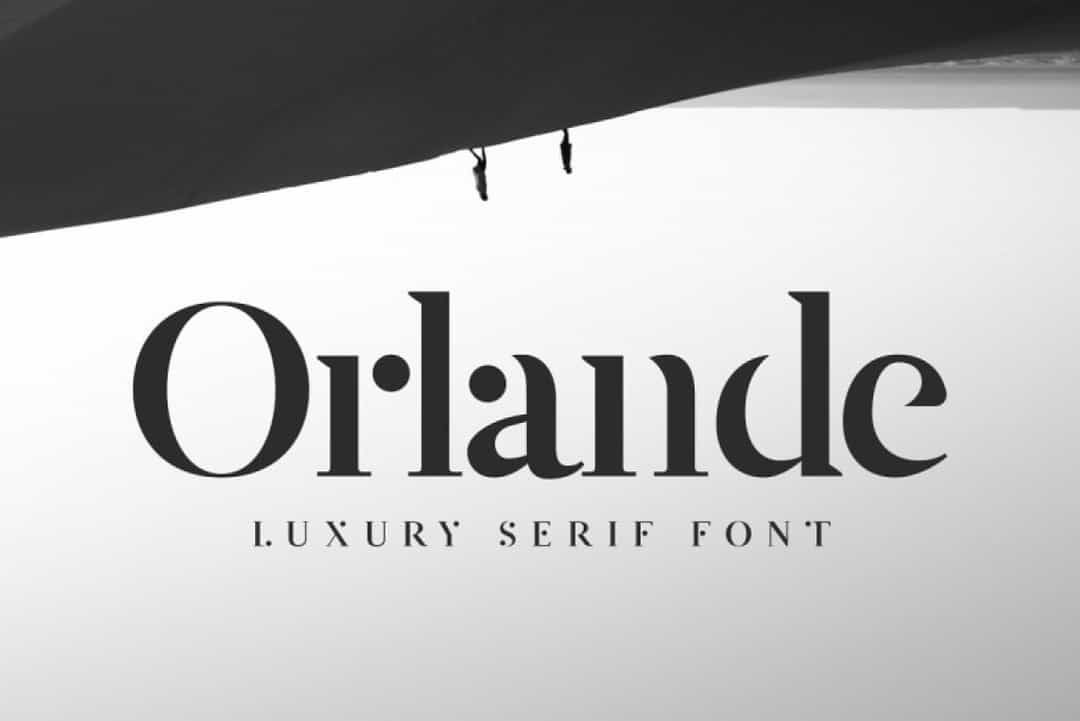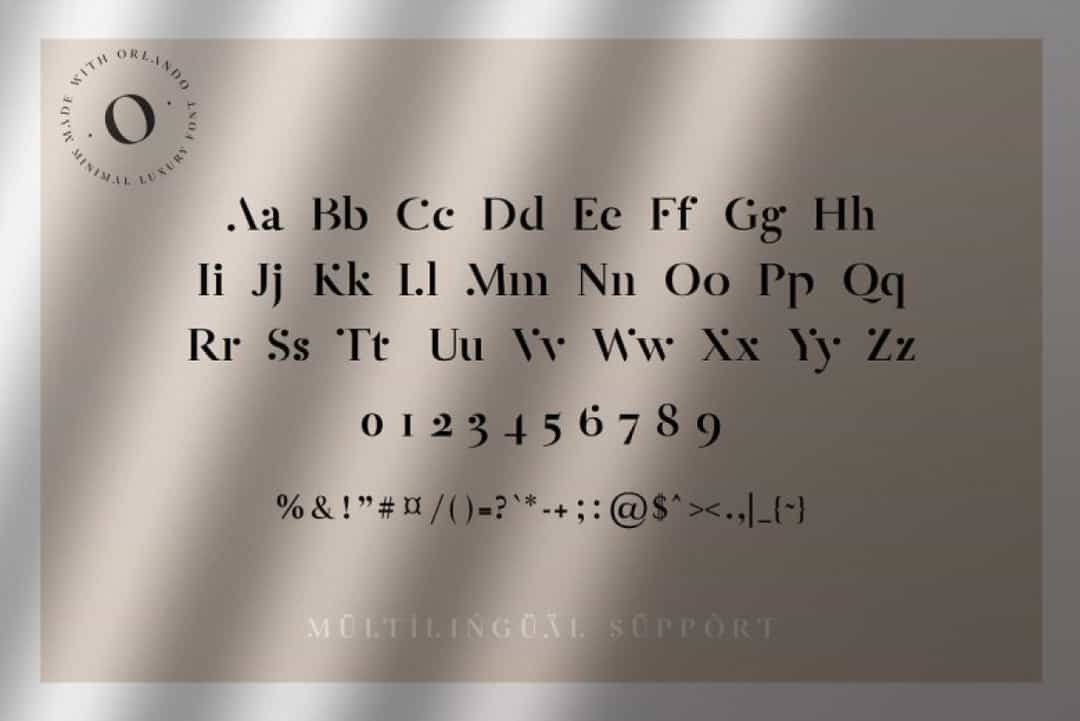
Discover Orlande Serif Font, part of the Serif collection—a versatile and unique font perfect for adding a personal touch to your projects. Download it for free and enjoy crafting designs with style, from invitations to social media posts. This font is available exclusively for personal use, giving you the freedom to create without limits. Unlock your creativity with Orlande Serif Font today!